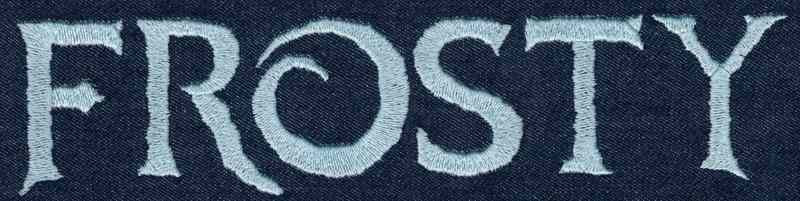
564 Frosty SatinFill Font
Frosty Satin Fill Font comes in 2", 3" and 4" heights based on the capital "A". All sizes are included in the purchase price. All characters are finished in SatinFill Stitch. Includes uppercase letters and numbers only (no lowercase or punctuation marks). SatinFill (also known as column fill) follows the stitch pattern of traditional Satin stitch but uses several stitches across the column to fill in. This font was hand drawn by Troy of Jolson's Designs and inspired by a popular animated movie. Edges are bumpy/wobbly intentionally to give the font a cracked ice look.